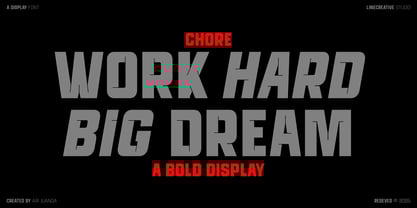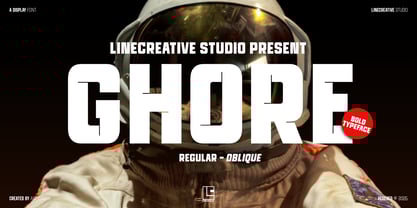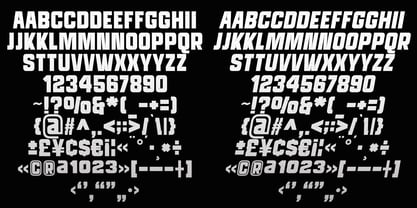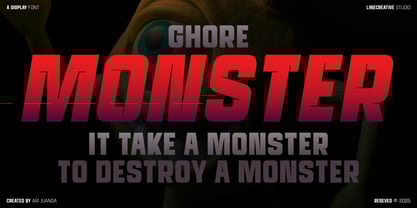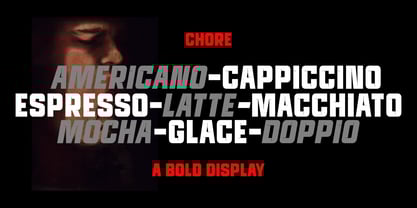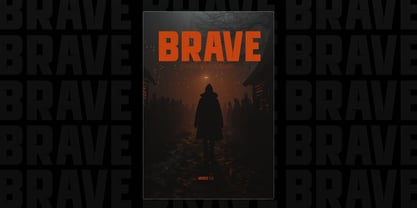
Ghore
by Linecreative
The Ghore Font Family was designed by Ari Juanda and published by Linecreative. Ghore contains 2 styles and family package options. More about this family
Introducing Ghore! A modern sans display font with a bold style, with sharp curves at each corner of the font body for a sharp and futuristic look. It comes in two variable fonts, regular and oblique, for a sportier and sharper look.
Designers: Ari Juanda
Foundry: Linecreative